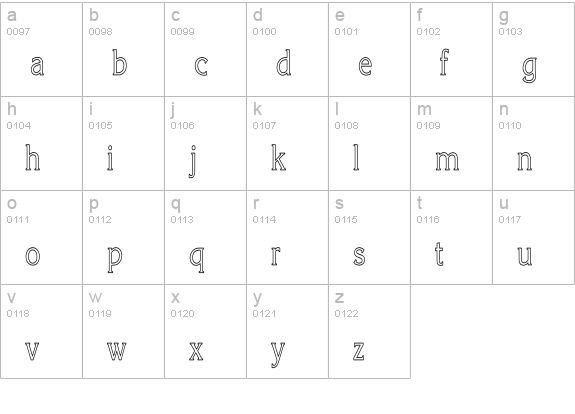
Korina-LightHC Font Details
Korina-LightHC is a modern and elegant font that exudes sophistication and style. With its sleek lines and clean design, this font is perfect for a wide range of design projects, from branding to editorial layouts. The light weight of the font gives it a delicate and refined appearance, making it ideal for adding a touch of elegance to any design. The best part about Korina-LightHC font is that it is available for free download at FontsMarket.com. This means you can easily access this beautiful font and use it in your projects without any cost. Whether you're a designer looking to elevate your work or just someone who appreciates good typography, Korina-LightHC is a must-have font that will enhance any project it's used in.